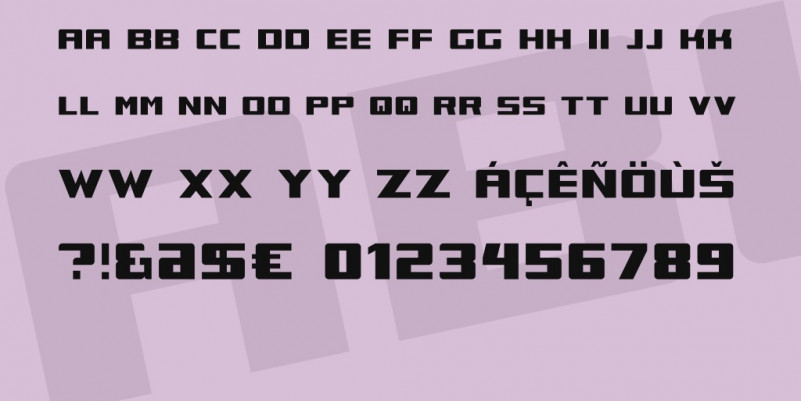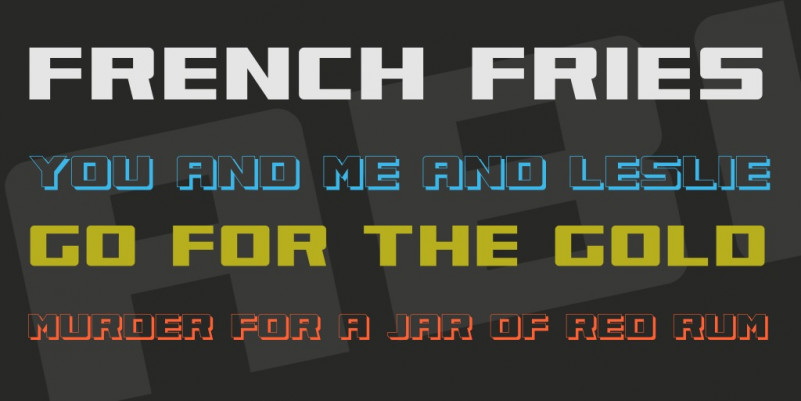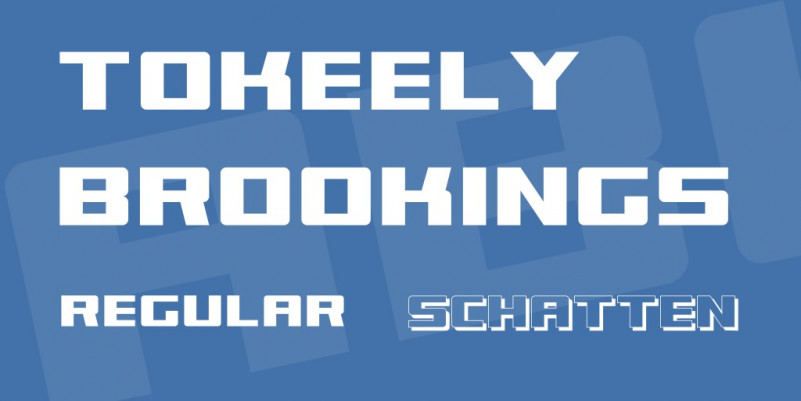
Tokeely Brookings Font
Tokeely Brookings Sans Serif Font is a bold display sans serif typeface with two styles – Regular and Shadow. The name comes from the Capcha used at the time to test whether the download was really made by a human. In reality, Google used it to train their text recognition. Words that could not be recognized were offered to Internet users. Today you have to mark traffic signs, traffic lights, cars or pedestrians on images that have been split up in a grid – this is about Google’s self-driving car, which you can learn to recognize.